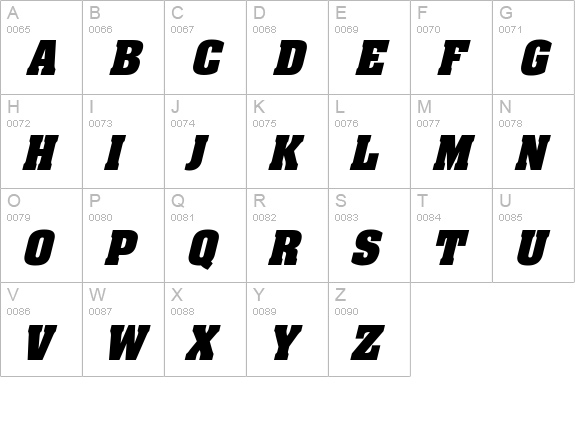
EricaBoldExpd Italic is a distinctive, italic variant in the EricaBoldExpd typeface family \xE2\x80\x94 well suited to design and typography projects.
Introducing EricaBoldExpd Italic font, a sleek and modern typeface designed to make a bold statement in your projects. With its striking Italic style, this font exudes elegance and sophistication, perfect for adding a touch of flair to your designs. The EricaBoldExpd Italic font is versatile and can be used for a wide range of projects, from branding to editorial design. What's even better is that this stunning font is available for free download at FontsMarket.com. Yes, you read that right - you can get your hands on this premium font without spending a dime. So why wait? Elevate your designs with the EricaBoldExpd Italic font today and make a lasting impression with its unique style and charm.